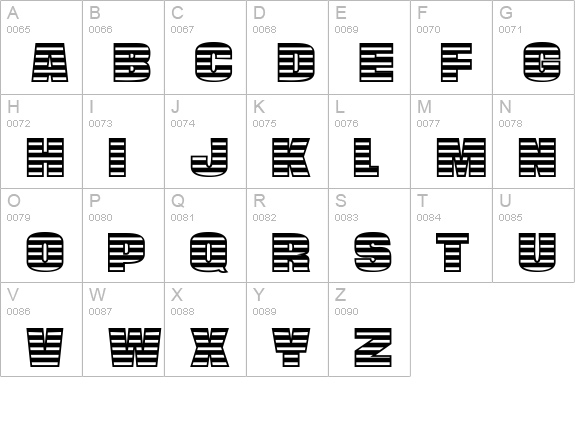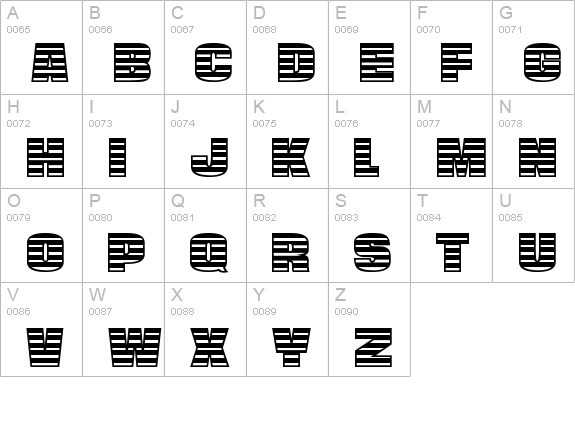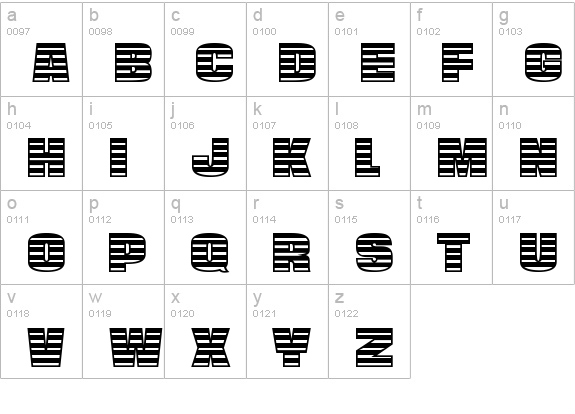
StriperBoldCaps Font Details
StriperBoldCaps is a modern and stylish display font that exudes confidence and sophistication. With its bold uppercase letters and clean lines, this font is perfect for making a statement in any design project. Whether you're creating a logo, poster, or website header, StriperBoldCaps will help your text stand out and leave a lasting impression. What's even better is that StriperBoldCaps is available for free download at FontsMarket.com. This means you can easily access this eye-catching font and incorporate it into your designs without any cost. Don't miss out on this opportunity to add a touch of elegance to your projects with StriperBoldCaps!